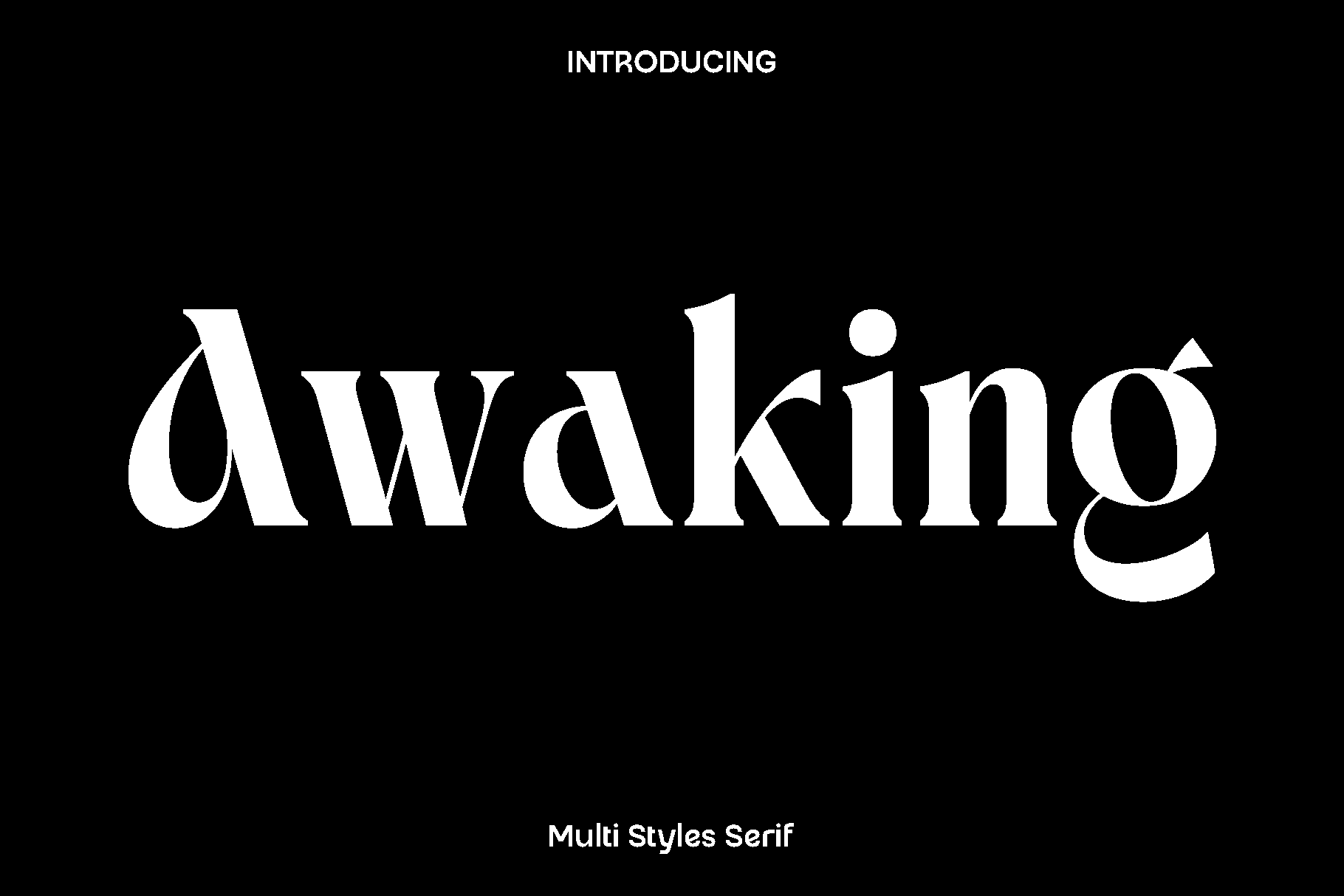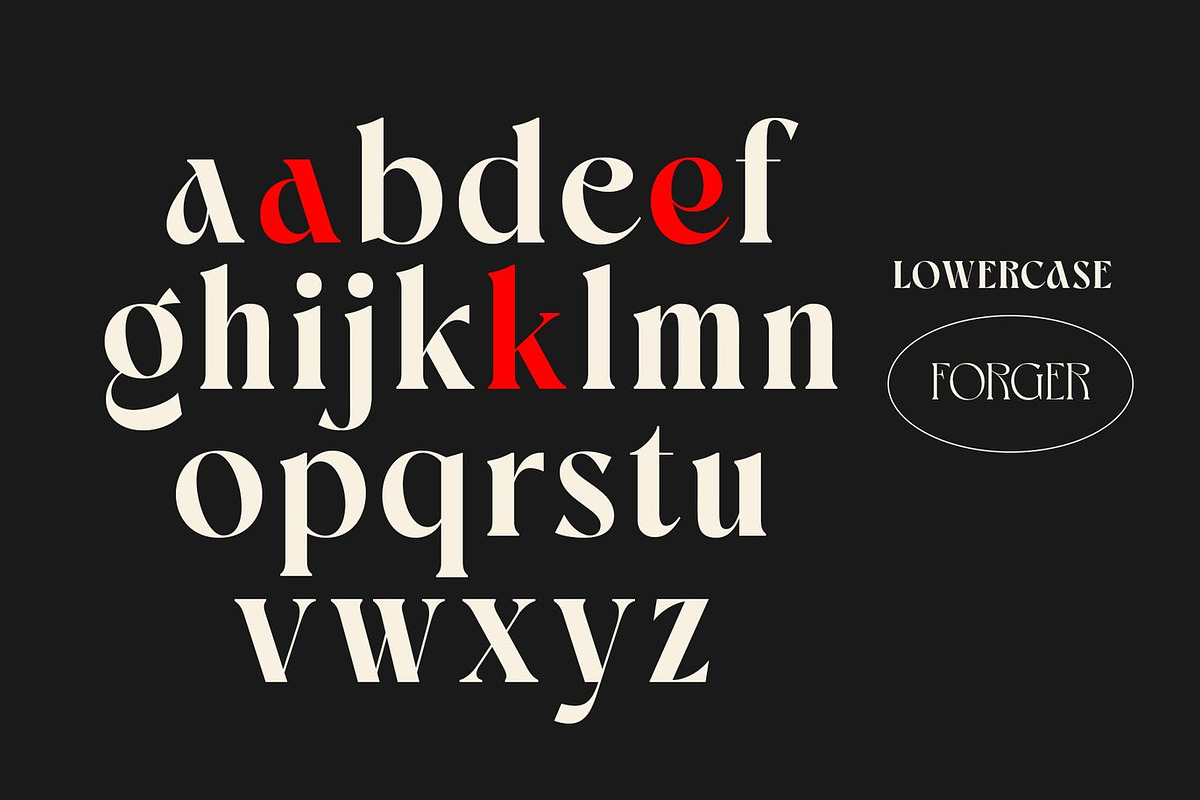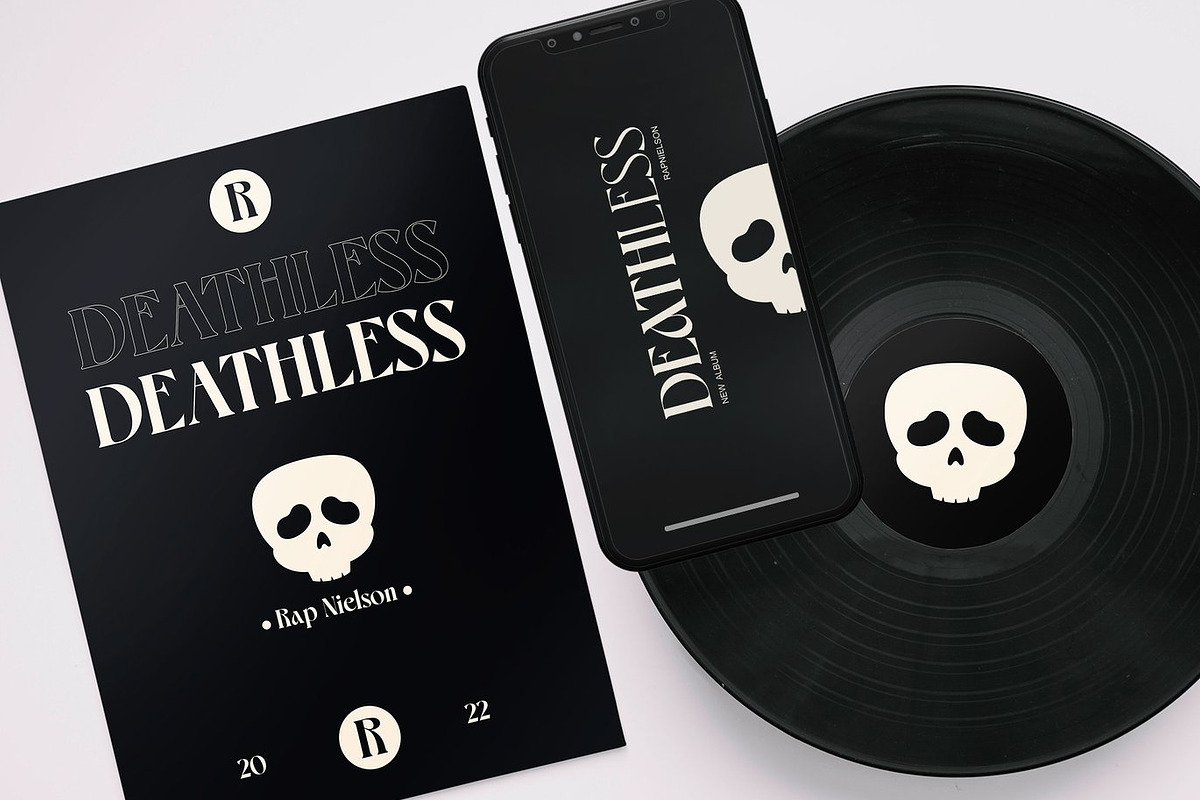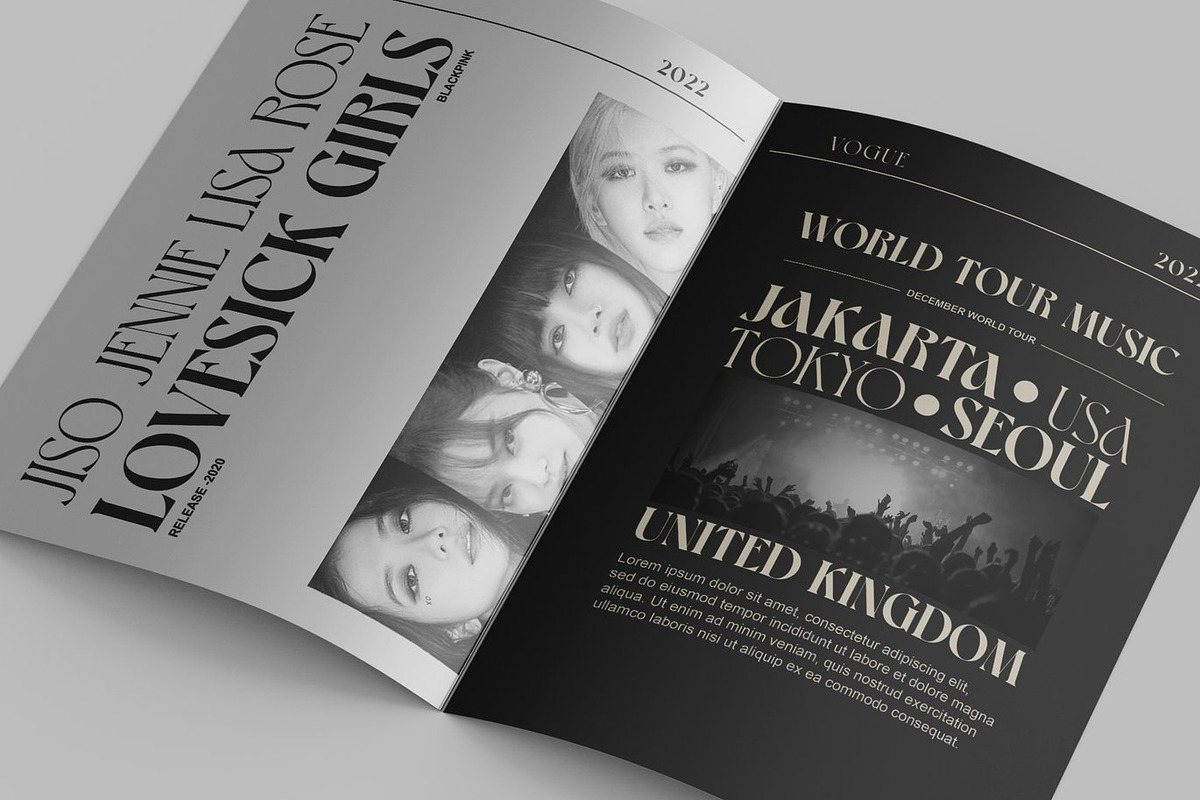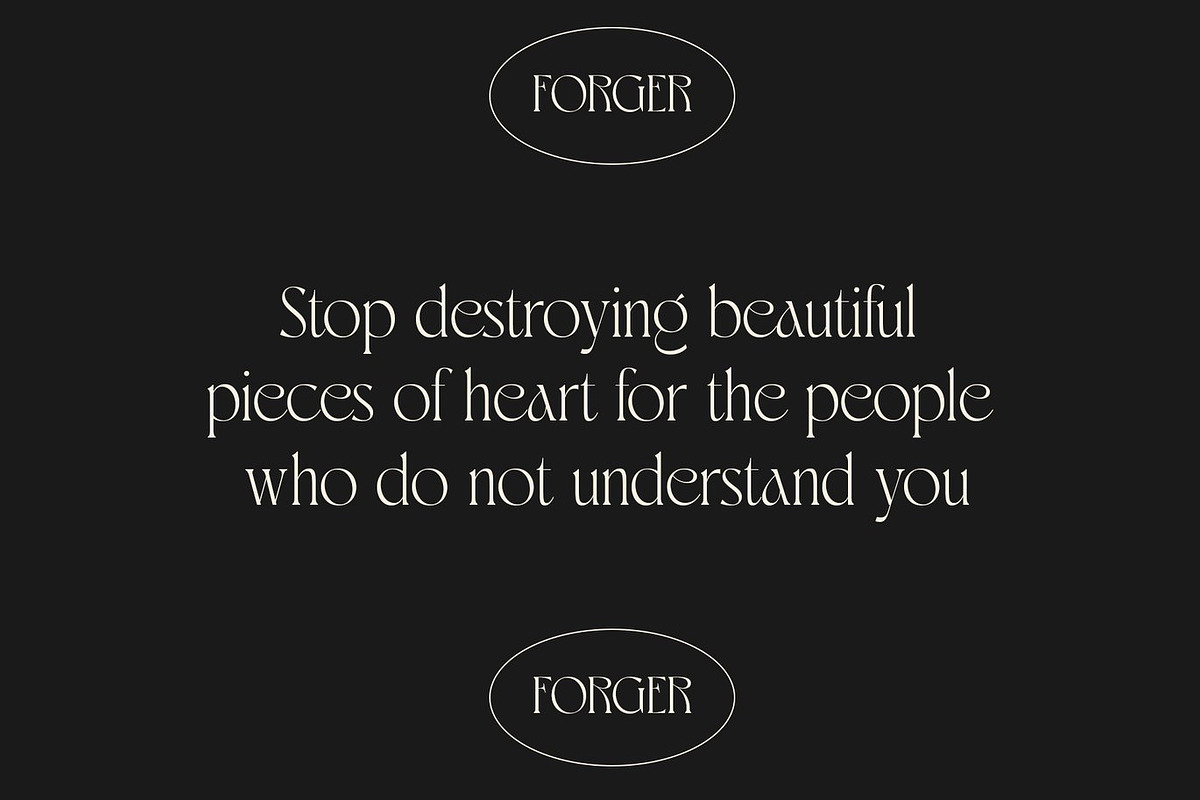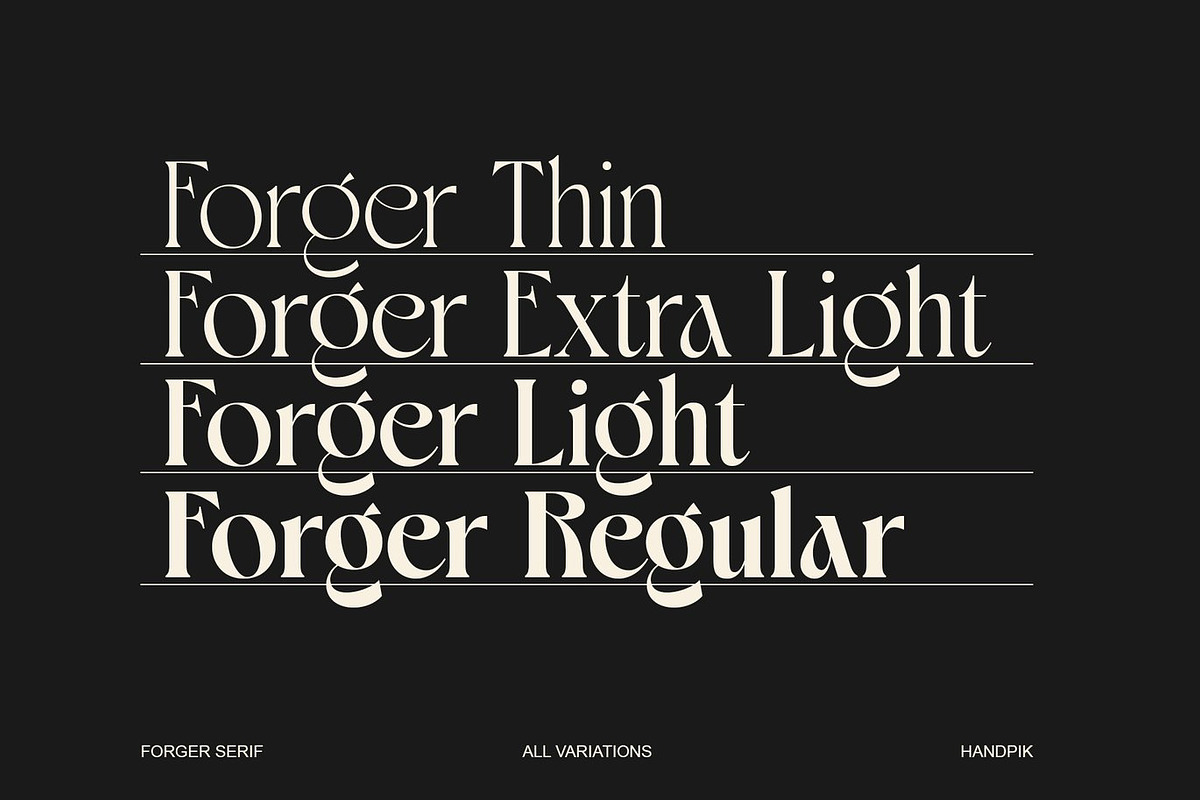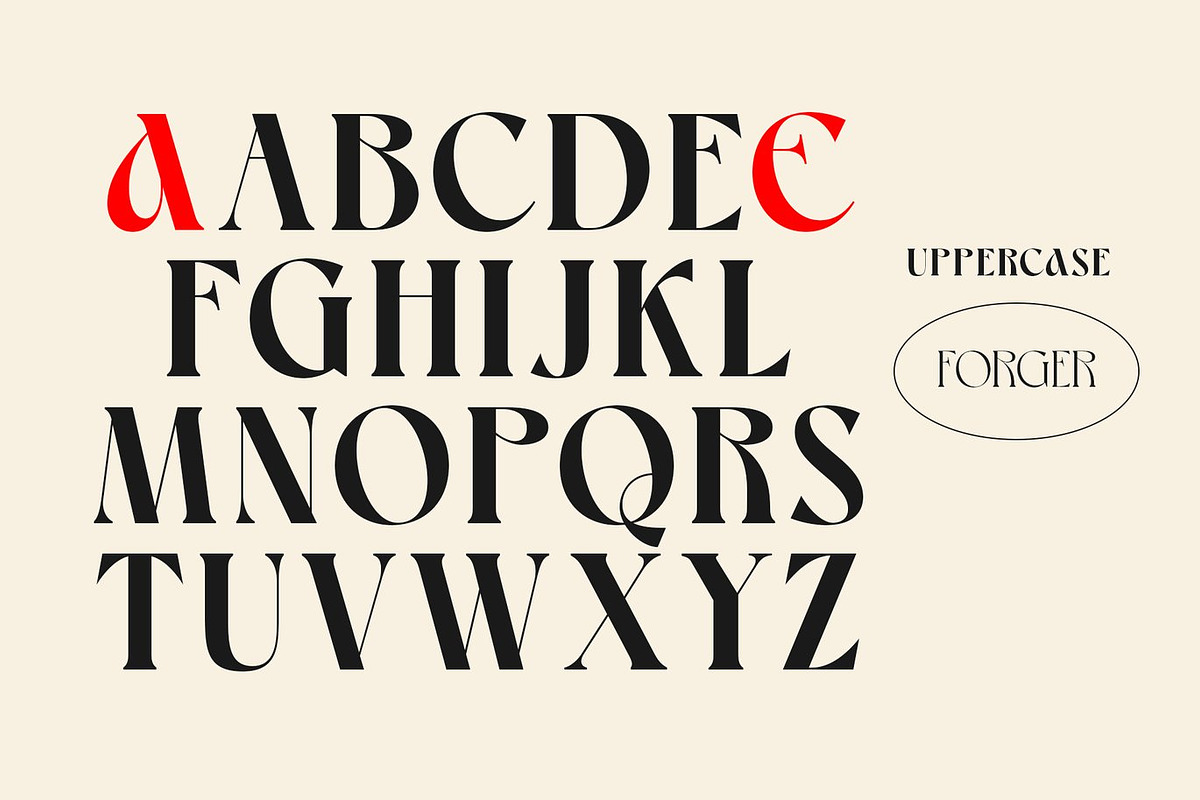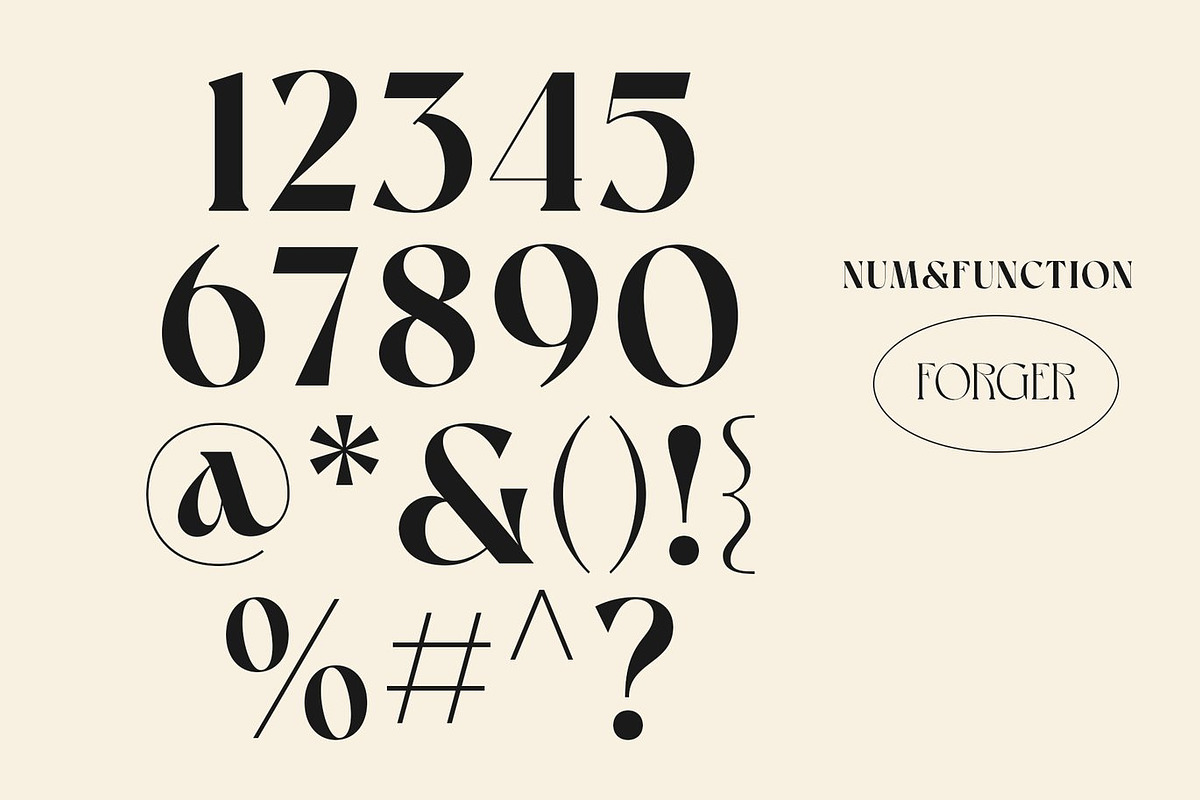
Awaking - Modern Serif Font
Awaking is a refined serif display font designed to capture the essence of timeless elegance and feminine sophistication. Its graceful curves, delicate strokes, and beautifully crafted alternates make every letter feel purposeful and stylish. Awaking combines classic serif charm with modern readability, resulting in a font that feels both luxurious and approachable, perfect for designs that aim to impress and inspire.
This versatile font shines in projects where elegance and personality matter. It is ideal for logos and branding, wedding invitations, stationery, social media graphics, advertising campaigns, printed quotes, product packaging, labels, and photography watermarks. Whether used in bold headlines or subtle decorative accents, Awaking brings sophistication and a polished touch to every project.
Awaking is available in Regular, Light, Thin, and Extra Light styles, allowing designers to achieve harmony and hierarchy in their work. Its stylistic alternates provide creative flexibility, enabling unique typographic compositions that stand out. With support for multiple platforms through OTF and TTF formats, Awaking seamlessly integrates into both digital and print workflows, making it a must-have for designers who value elegance, versatility, and style.
Awaking Serif Display Font Features:
• Elegant and feminine serif characters
• Beautiful alternate stylistic characters
• Four weights: Regular, Light, Thin, Extra Light
• Uppercase and lowercase letters
• Punctuation, numbers, and symbols
• Perfect for branding, weddings, social media, packaging, and editorial projects
Awaking transforms your designs with a sense of classic beauty and modern refinement, helping every project leave a lasting, sophisticated impression.